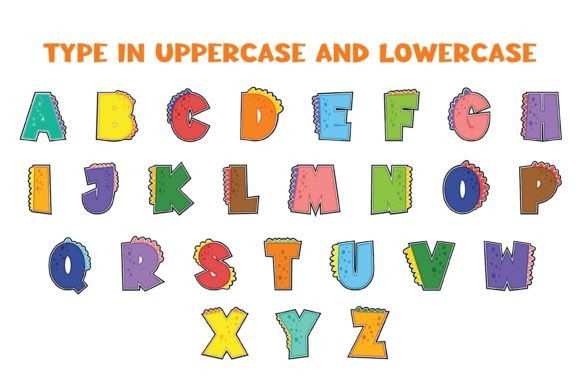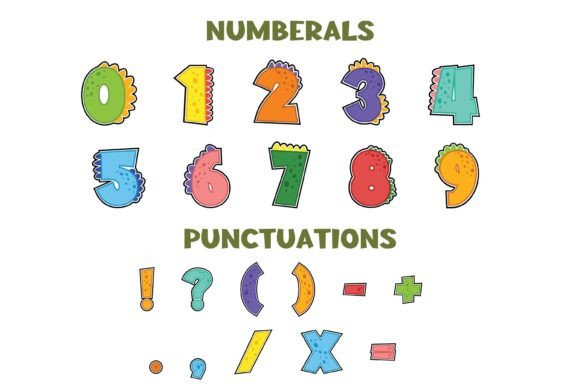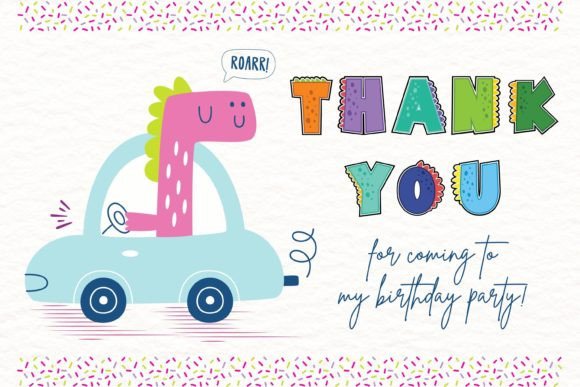
Introducing Dino Deno Font: Add a Playful Touch to Your Designs
Are you looking for a fun and cheerful font to elevate your designs? Look no further than the Dino Deno Font! This vibrant color font is perfect for a variety of projects, from t-shirt designs and mugs to crafts, cards, and stickers. In this article, we’ll explore the features and benefits of the Dino Deno Font, as well as provide tips on how to use it with different design programs and cutting machines.
A Font that’s Full of Life
The Dino Deno Font is a unique and playful color font that’s sure to add a pop of color and fun to any design. Its cheerful vibe makes it perfect for projects that require a lighthearted and whimsical touch. Whether you’re a designer, crafter, or DIY enthusiast, this font is sure to inspire your creativity.
One of the best things about the Dino Deno Font is its versatility. It can be used on a wide range of projects, including:
- T-shirt designs: Create eye-catching and fun designs for t-shirts, hoodies, and other apparel.
- Mugs: Add a playful touch to ceramic mugs, water bottles, and other drinkware.
- Crafts: Use the font to create custom signs, decorations, and other craft projects.
- Cards: Design personalized greeting cards, invitations, and postcards.
- Stickers: Create custom stickers for laptops, water bottles, and other items.
Tips for Using the Dino Deno Font
Here are some tips for getting the most out of the Dino Deno Font:
- Experiment with different colors: The color version of the font offers a range of vibrant colors, so don’t be afraid to experiment and find the perfect combination for your design.
- Pair it with other fonts: The Dino Deno Font pairs well with other fun and playful fonts, so try combining it with other fonts to create a unique look.
- Use it for kids’ projects: The font’s playful and cheerful vibe makes it perfect for kids’ projects, such as birthday cards, party invitations, and educational materials.